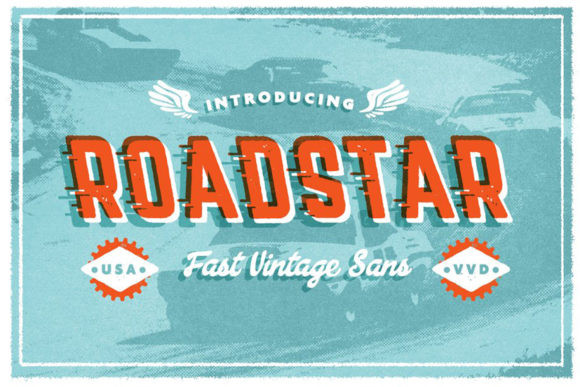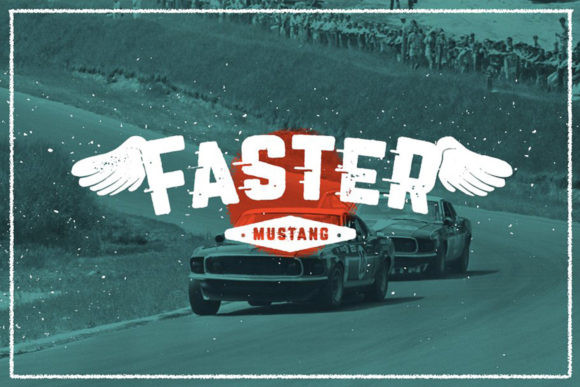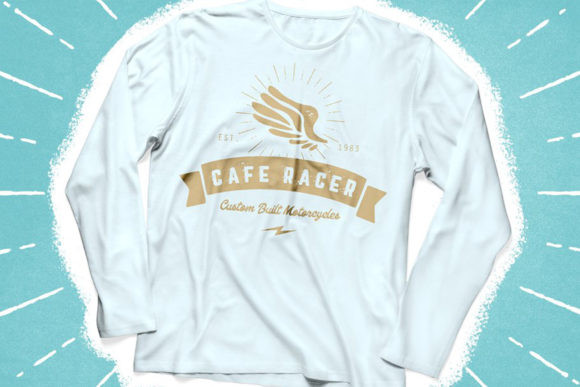
Roadstar Font
Roadstar is a unique sans serif font. It has a vintage and classic look that makes it perfect for movies, posters and much more! Use it to add that special touch to any design idea you can think of!